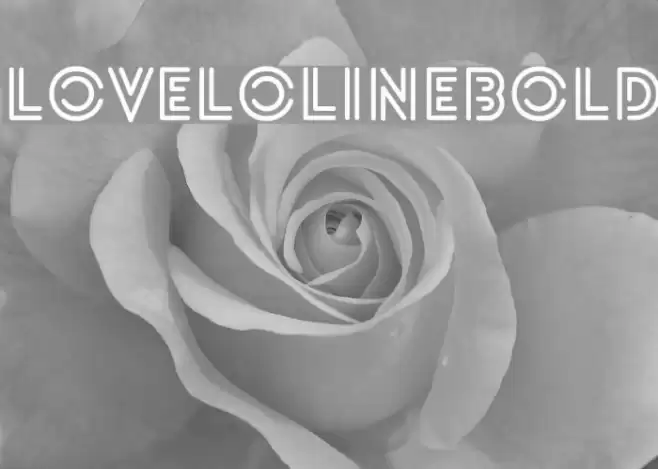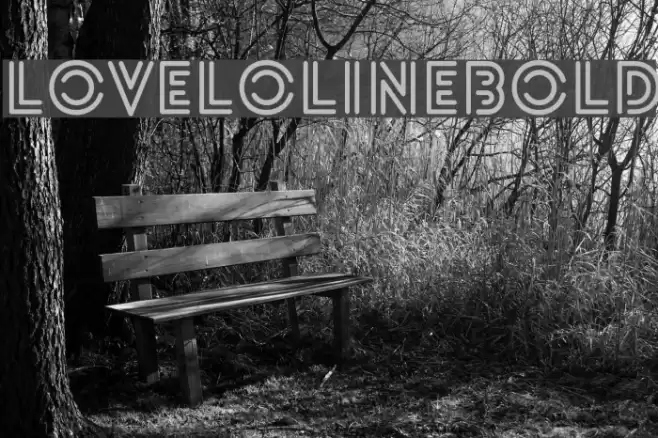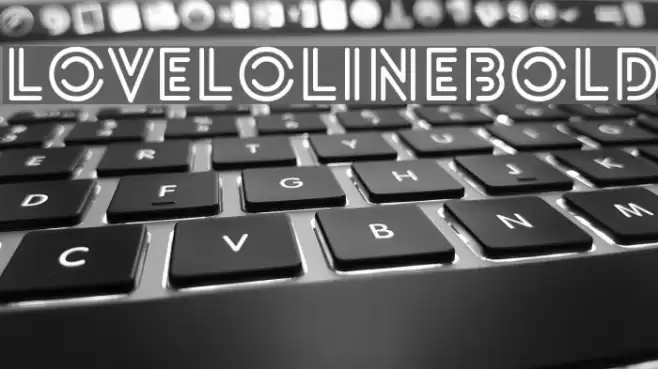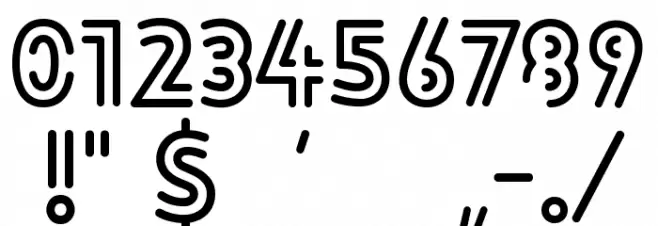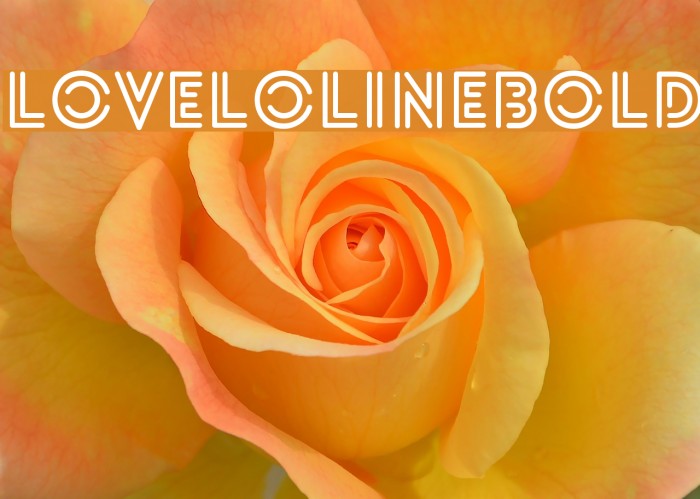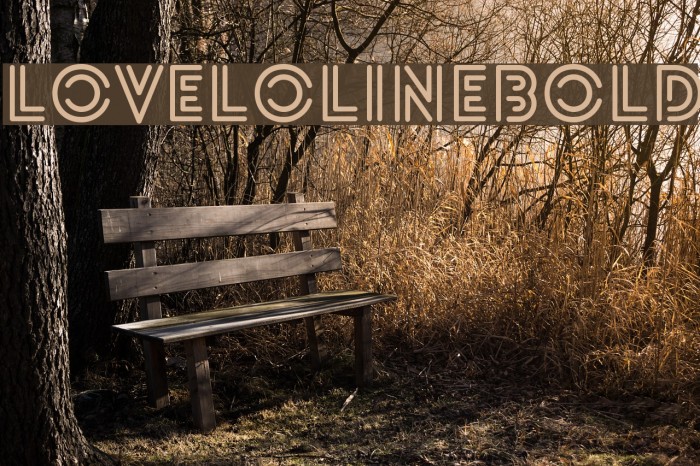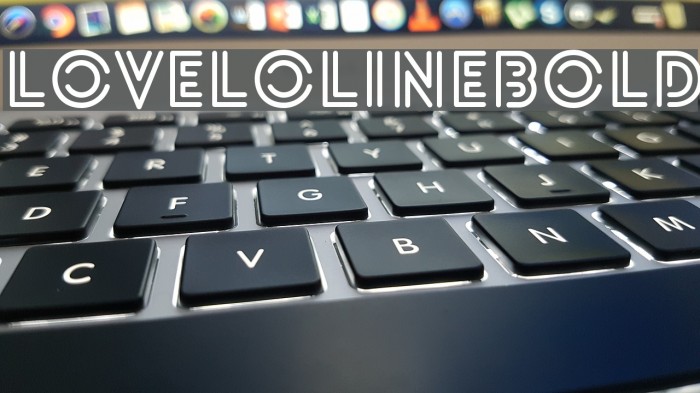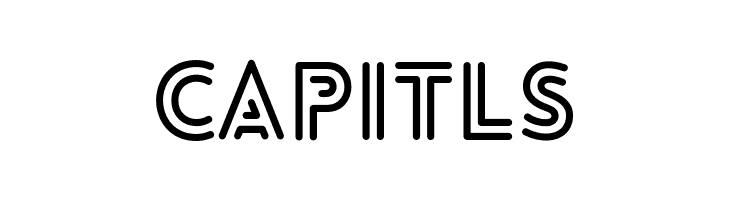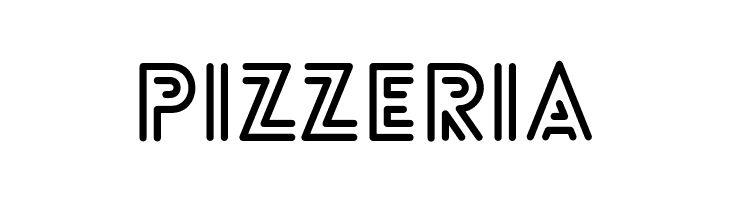
LoveloLineBold Font
LoveloLineBold Description
This font features a modern and geometric design with a distinct double-line style that creates a bold and striking appearance. The uppercase and lowercase letters maintain a consistent width, giving the font a uniform and structured look. The numbers and special characters follow the same design principles, ensuring a cohesive appearance across all elements. The font's clean lines and open spaces make it highly legible, even at smaller sizes, while the unique line style adds a touch of creativity and flair. It's perfect for projects that require a contemporary and eye-catching typeface.
A modern, geometric font with a unique double-line style for a bold and striking look from Uncategorized fonts.